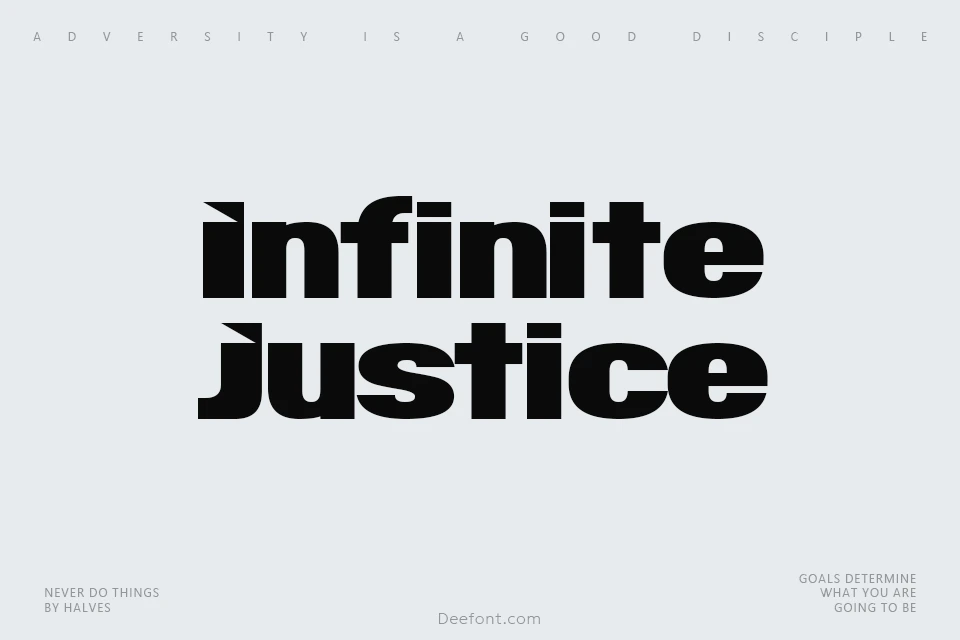
Infinite Justice Font Family
Infinite Justice Font Family is a dynamic display typeface created by Adam Nerland of Insanitype Font Design. The family consists of two variants – Regular and Straight styles. This bold, angular typeface features slightly italicized characters that convey a sense of motion and energy. Originally inspired by the ACDelco font, it was dedicated to those who lost their lives in the World Trade Center attacks. The font is particularly well-suited for headlines, posters, and sports-related designs, with its strong geometric forms and distinctive techno-modern aesthetic. It’s freely available for personal use and includes support for basic Latin characters.
Designed by:Insanitype